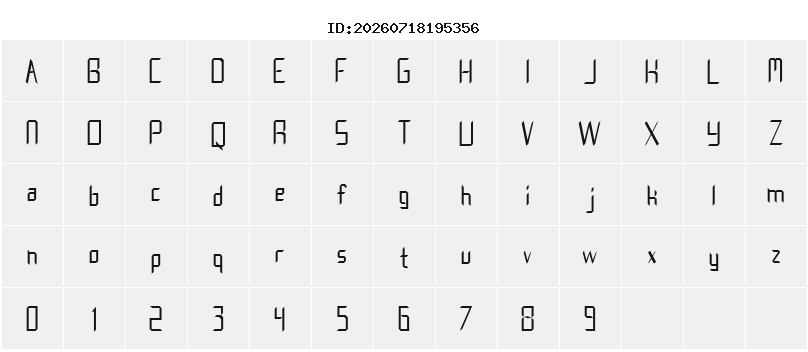
About Creedmore.ttf
Creedmore.ttf is a modern, elegant sans-serif font designed for ultimate readability and visual harmony. Perfect for branding, headlines, web design, and print materials.